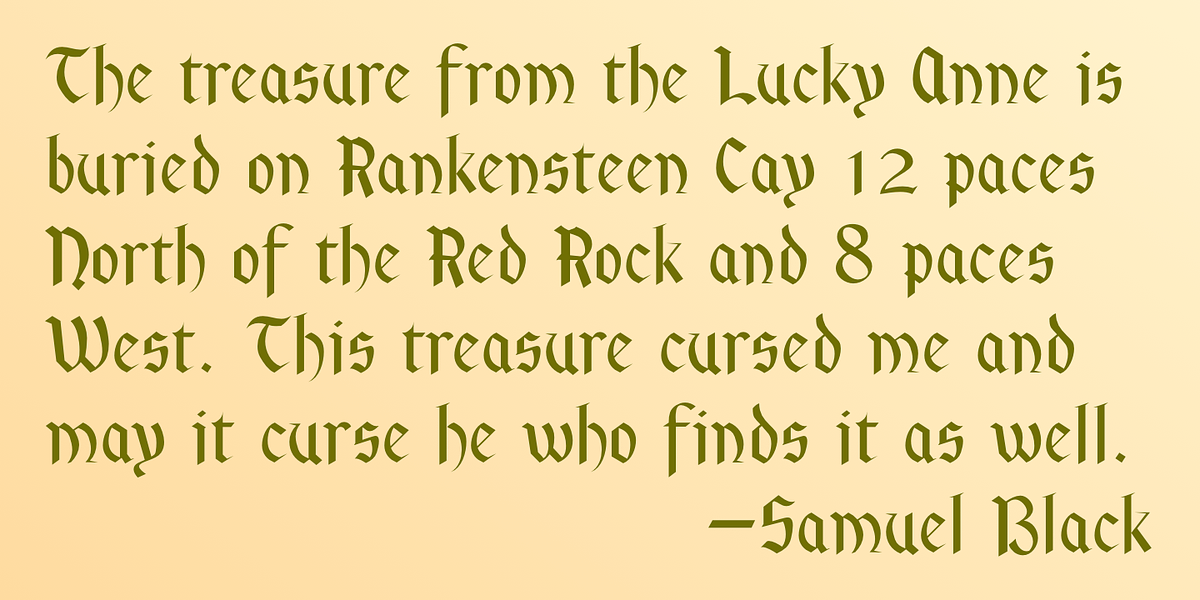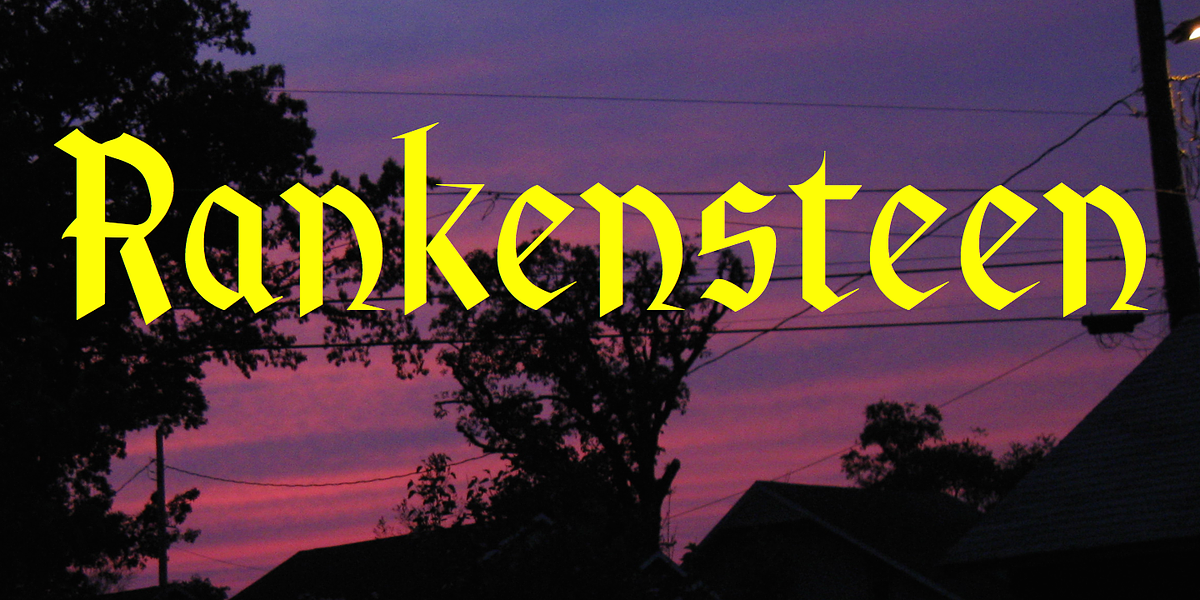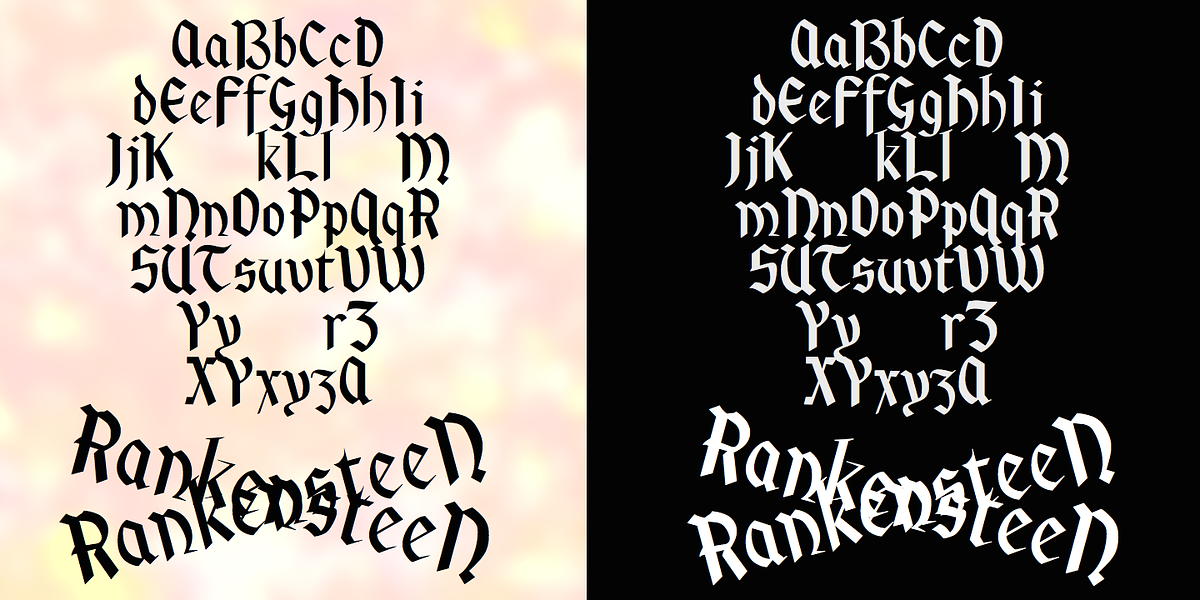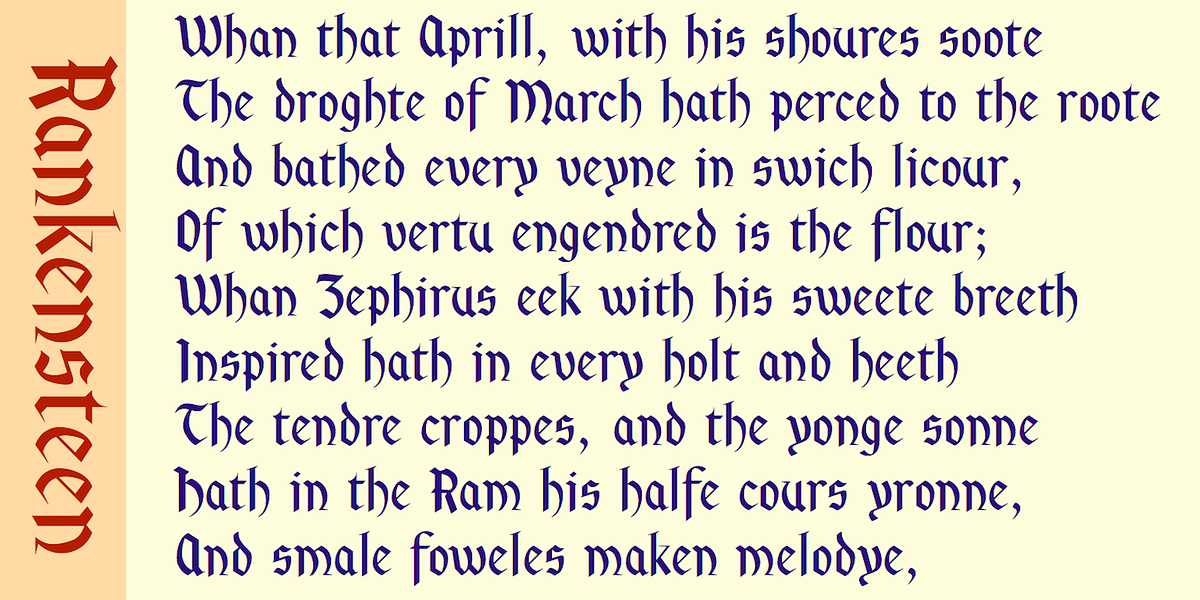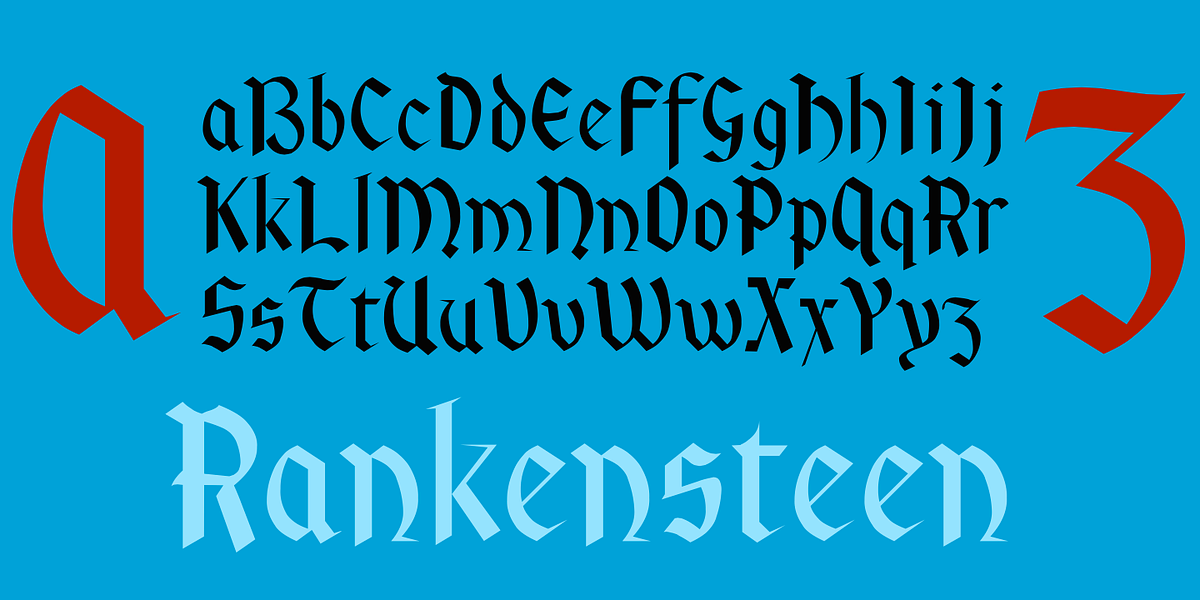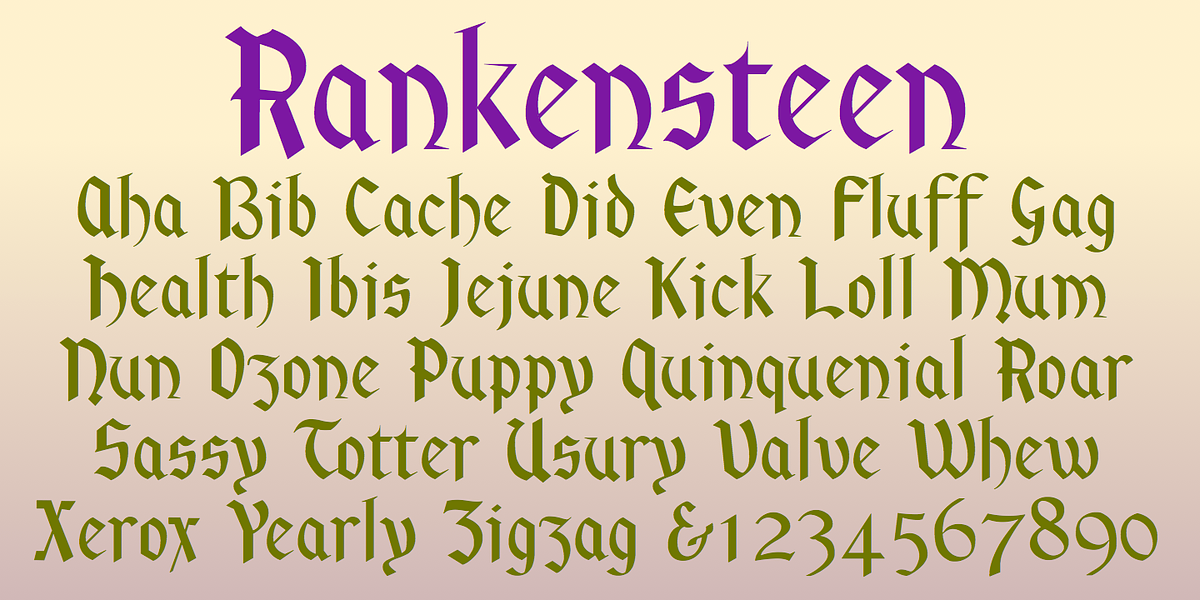
Rankensteen
Rankensteen is a blackletter typeface characterized by its crude and bizarre appearance. Its somewhat menacing aesthetic makes it more suitable for fantasy settings or pirate-themed projects rather than formal applications like invitations.